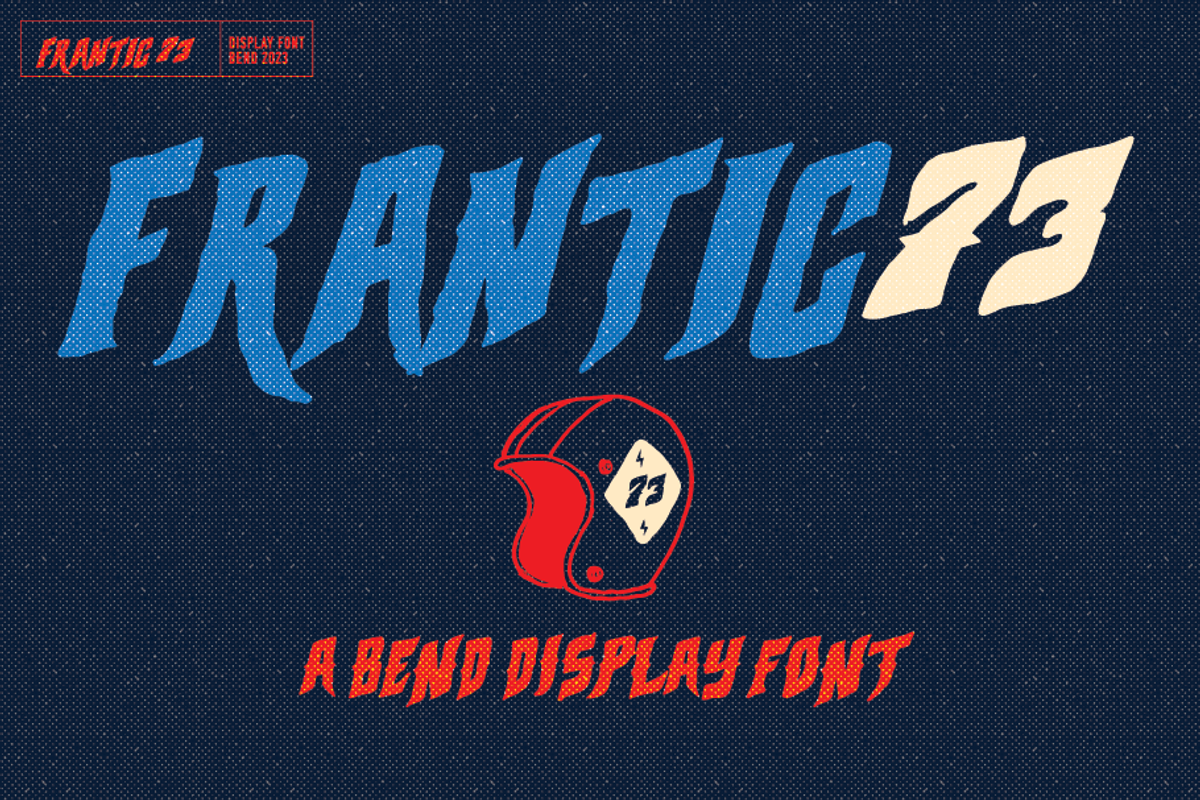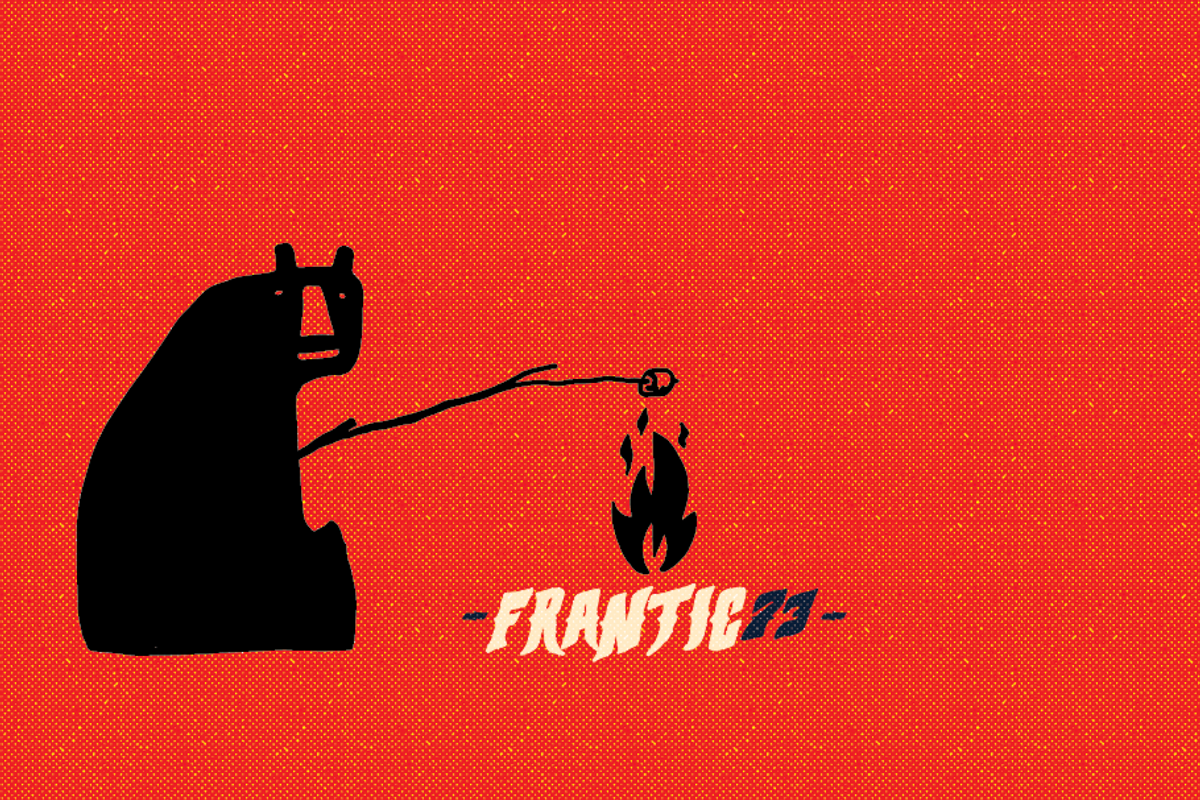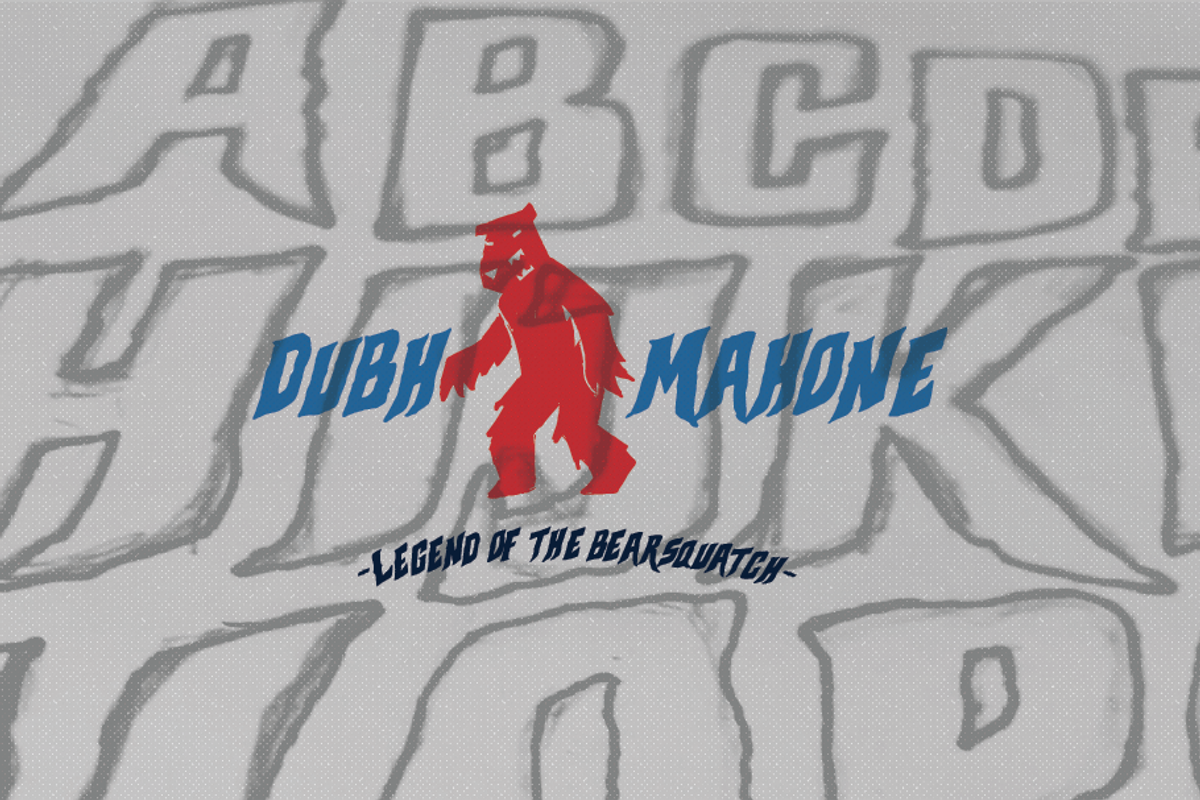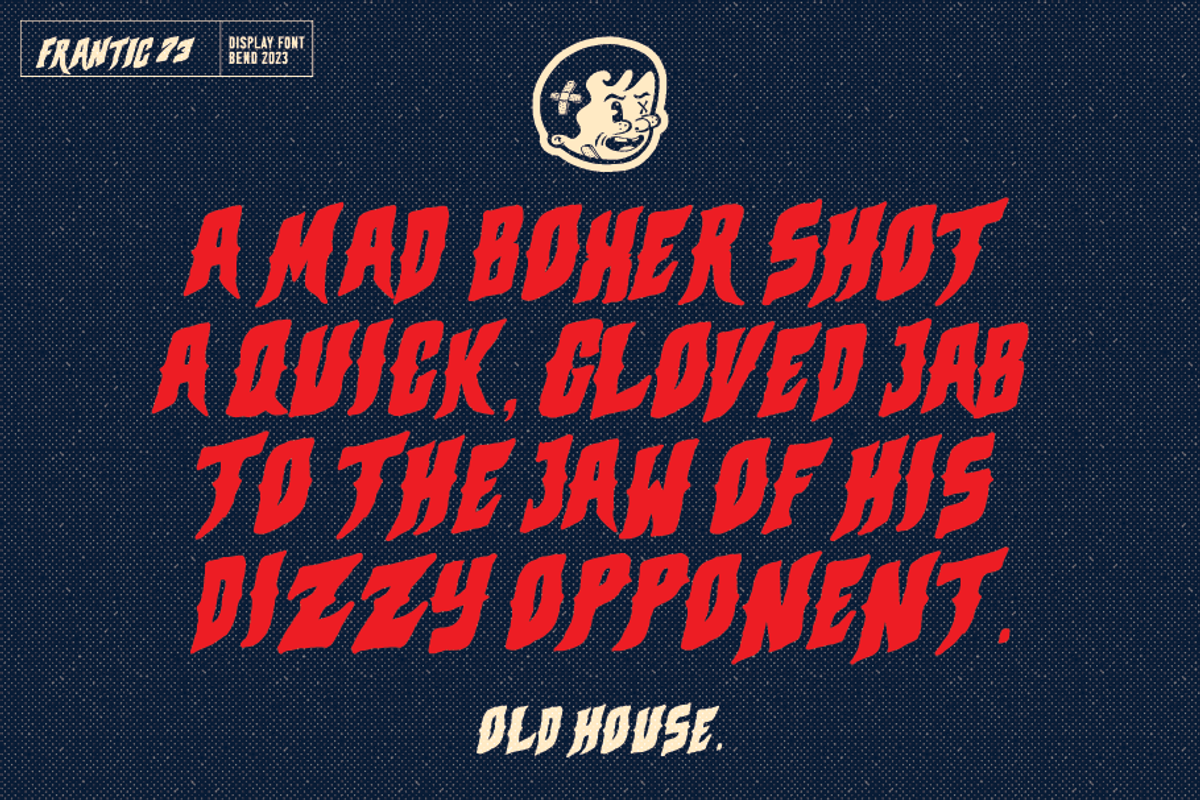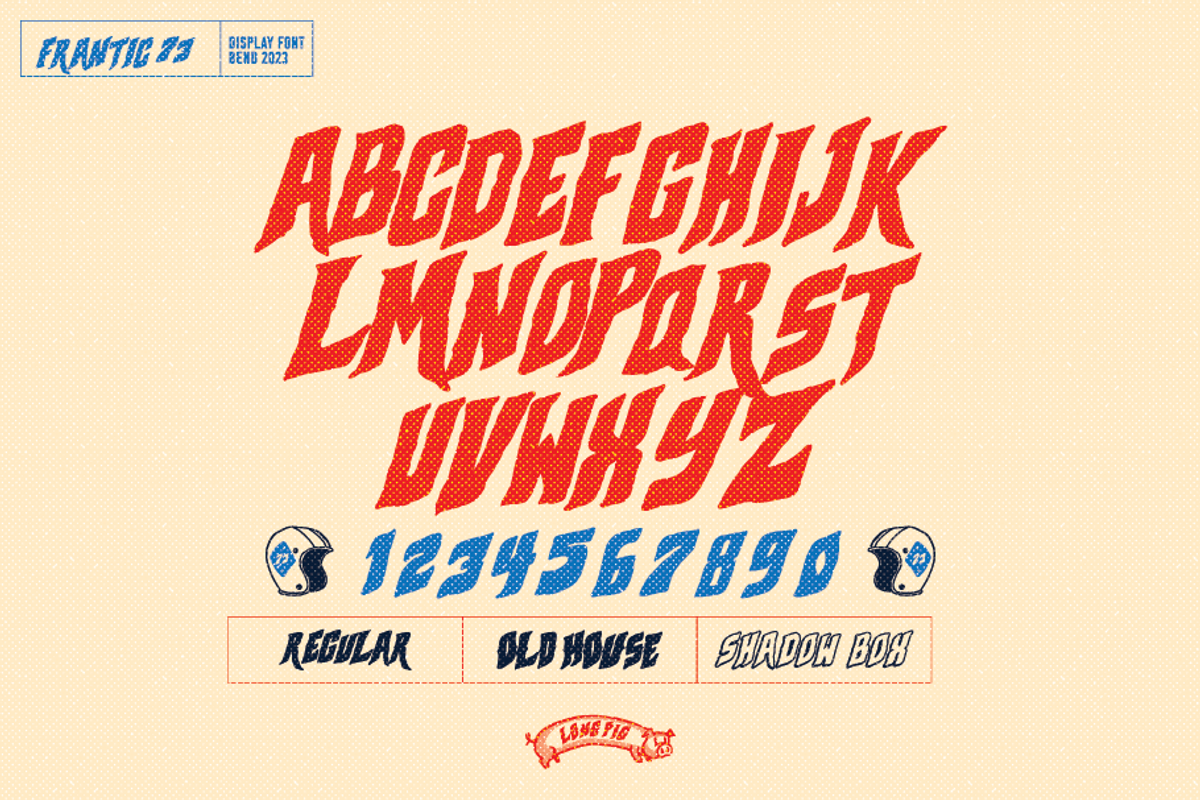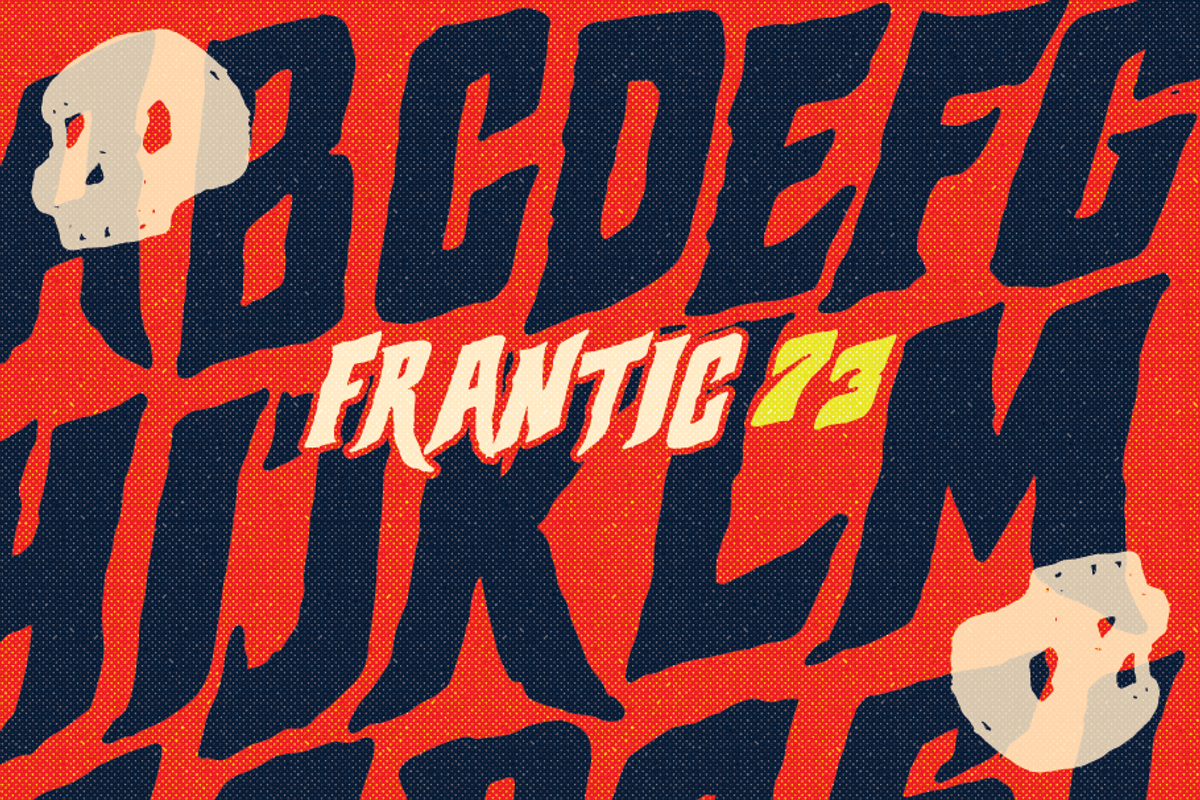
Frantic73 - A Display Font
Frantic 73 was inspired by a recent trip to canada and coffee. It's an edgy hand drawn display font with unlimited possibilities. Perfect for poster design, festival art, logo design , comic art, fashion design and a ton of other uses. Perfect for fun and natural design work.